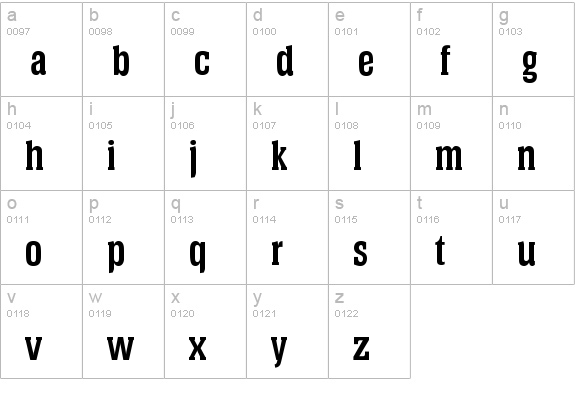
Helium-DemiBold is a sub-bold, structured variant in the Helium typeface family \xE2\x80\x94 well suited to sub-headlines and emphasised passages.
Introducing Helium-DemiBold, a font that effortlessly merges elegance with modernity, making it the perfect choice for any design project seeking a bold and sophisticated touch. With its clean and sharp lines, this typeface exudes confidence and professionalism, while maintaining a subtle warmth that welcomes the reader. Helium-DemiBold possesses a unique balance of strength and grace, making it suitable for a wide range of applications. Whether it's a sleek corporate logo, a stylish magazine layout, or an eye-catching website, this font will elevate your design to new heights. One of the most remarkable features of Helium-DemiBold is its versatility. It seamlessly adapts to various design styles, effortlessly complementing both minimalist and intricate compositions. Its bold and commanding presence on the page is sure to captivate the attention of any audience. To make this exceptional font even more appealing, it is freely available to download at FontsMarket.com. Yes, you read that right – Helium-DemiBold can be yours without any cost. This means that you can bring your creative visions to life without any financial barriers, allowing you to fully explore the endless possibilities this font offers. With its strong and confident appearance, Helium-DemiBold ensures that your message is delivered with impact and clarity. Its clean and legible letterforms guarantee readability even at smaller sizes, making it suitable for both print and digital media. Don't miss the opportunity to enhance your designs with the powerful elegance of Helium-DemiBold. Download it for free at FontsMarket.com and unlock a world of design possibilities. Let this font be the catalyst for your creative endeavors, as it adds a touch of sophistication and professionalism that will leave a lasting impression.